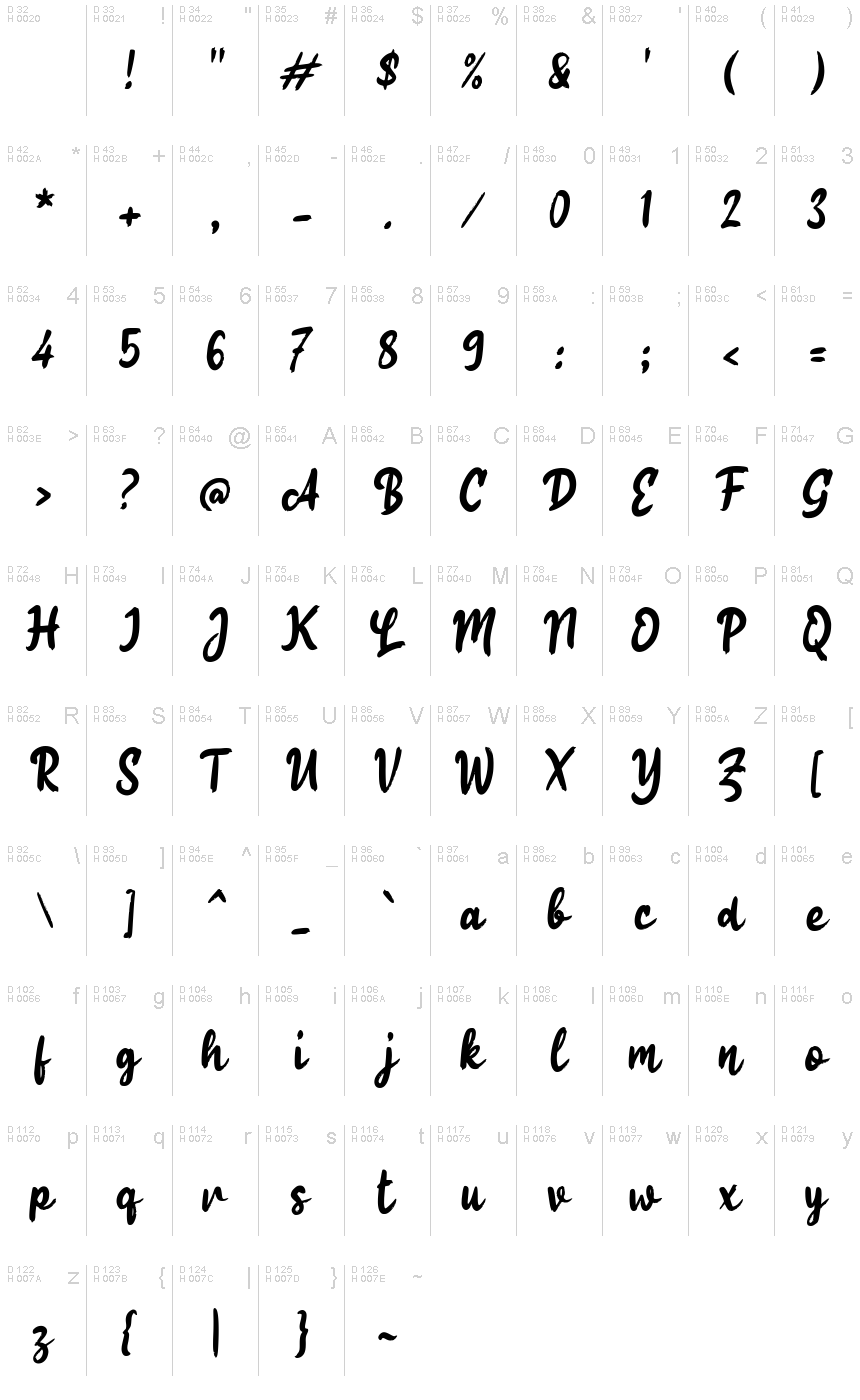
Gelang Script
Gelang Script font, designed by wep, is a captivating brush-style typeface that exudes energy and flair. This free font's bold strokes and fluid curves bring a dynamic feel to any project, making it perfect for creative endeavors.
Ideal for branding, logos, and headlines, Gelang Script adds an artistic touch with its distinct handwriting aesthetic. Whether you're crafting invitations or designing social media graphics, this font provides versatility with its lively appeal.